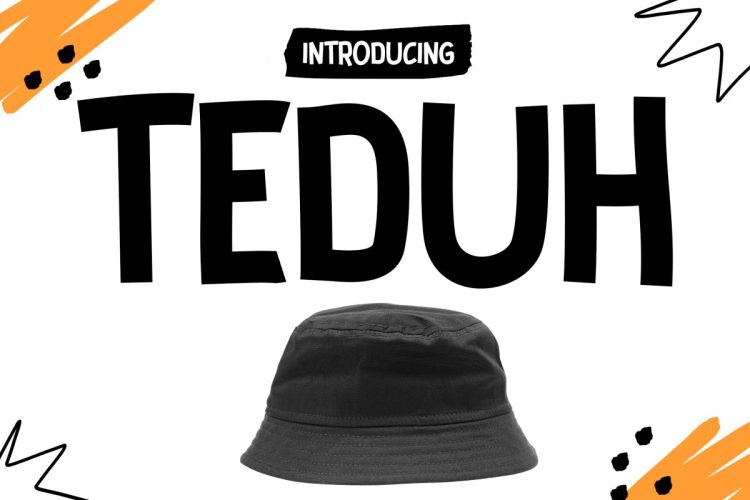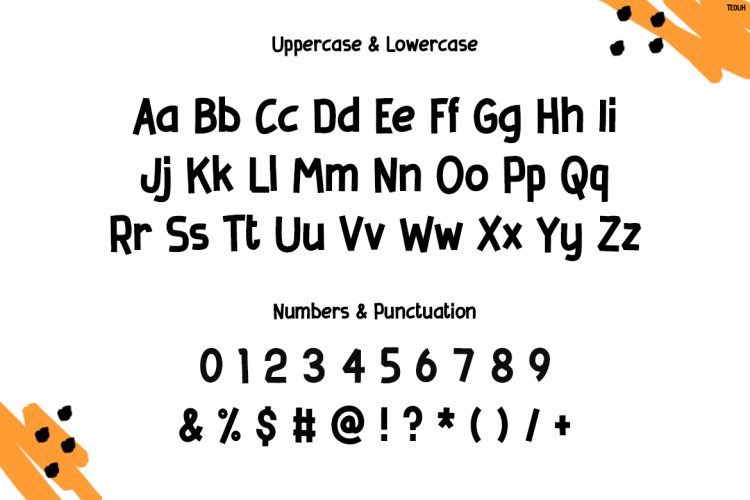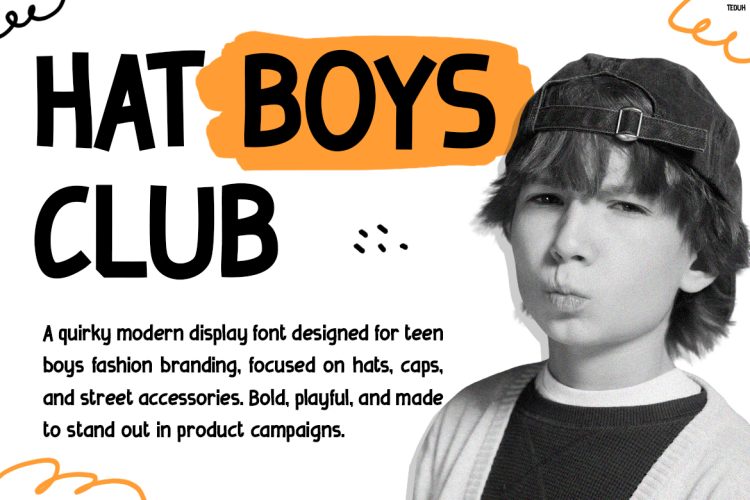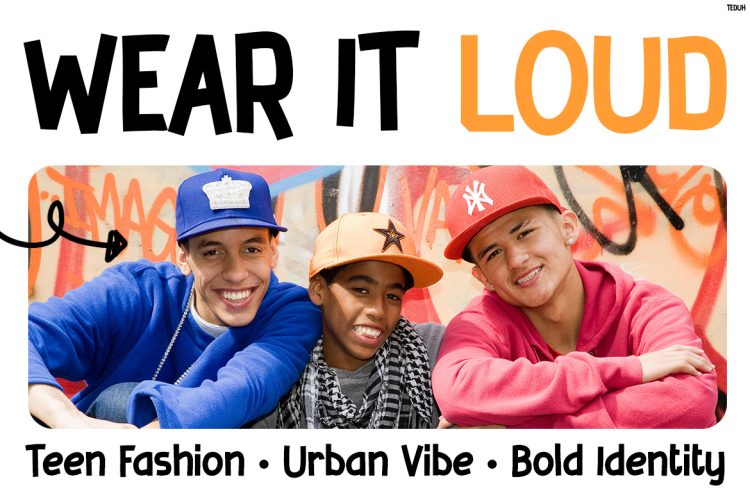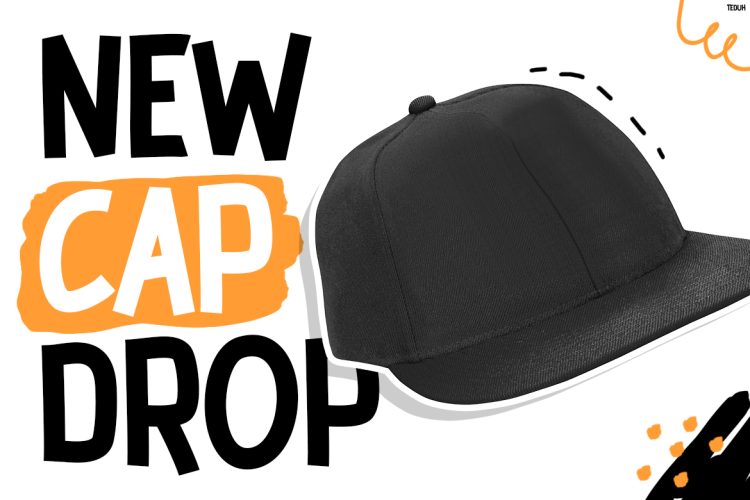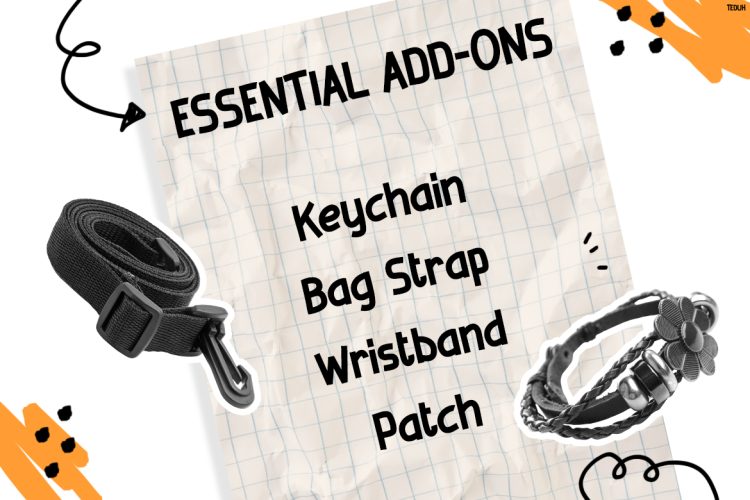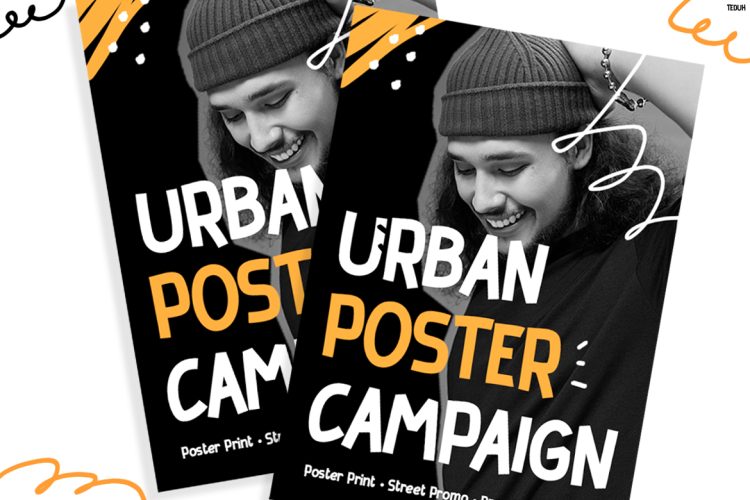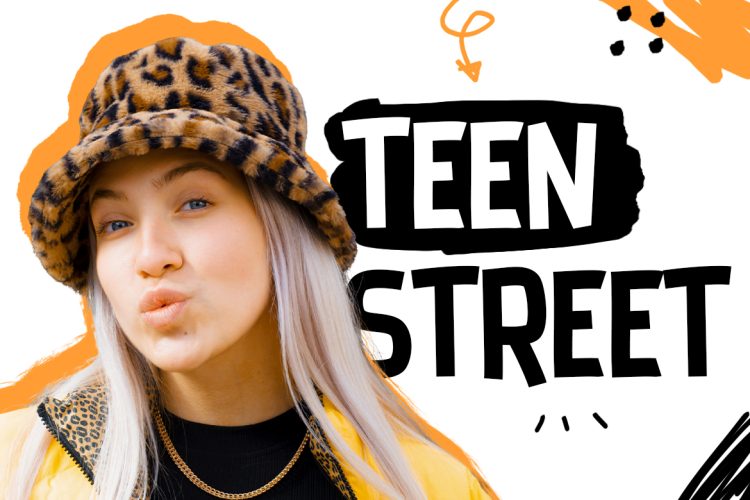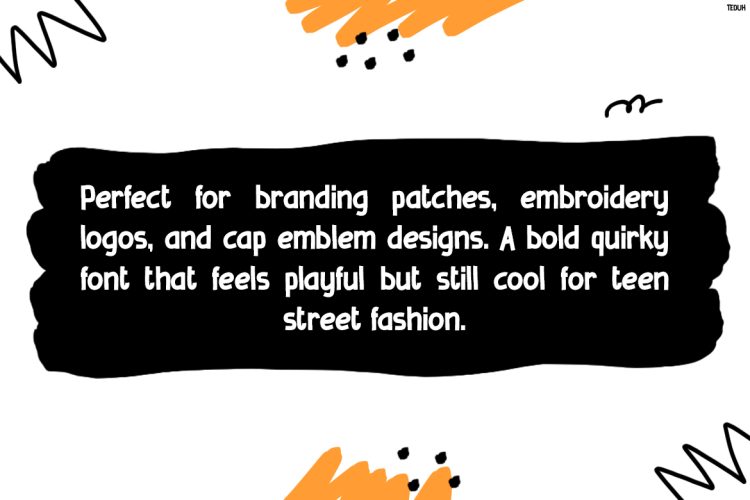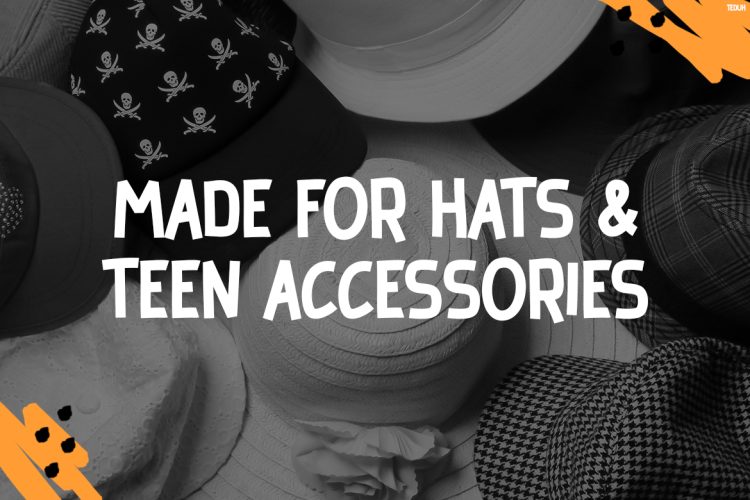
Instagram Font Teduh โ Bold Street Font with Urban Teen Energy
Instagram Font Teduh is a bold and playful display font designed to bring strong streetwear vibes into every design. With its chunky hand-drawn letterforms, quirky shapes, and urban-inspired style, this font instantly creates a loud and energetic visual atmosphere. Moreover, the bold typography makes every headline feel more expressive, modern, and attention-grabbing. In addition, the playful imperfect details give your layouts a raw and authentic street-style personality. Because of its strong urban aesthetic, Instagram Font Teduh works perfectly for teen branding, fashion campaigns, social media graphics, and edgy promotional content. Furthermore, the thick character structure keeps your text highly readable across both digital and print media. At the same time, the trendy handwritten vibe helps every design feel more youthful, stylish, and visually powerful.
Why Instagram Font Teduh Hits Different
Teduh combines modern street typography with playful urban energy. As a result, every word feels bold, rebellious, and full of attitude. Not only does the font create a strong visual impact, but it also enhances your branding with its trendy and expressive appearance. Additionally, the chunky letterforms make headlines stand out instantly on posters, packaging, and social media posts. Meanwhile, the hand-drawn aesthetic keeps every layout looking more natural and engaging. Whether you are creating teen fashion campaigns, hat branding, or urban event promotions, this font helps every project feel louder and more dynamic. Likewise, the edgy streetwear vibe instantly connects with younger audiences and modern creative trends.
- Streetwear branding
- Teen fashion campaigns
- Instagram posts and reels
- Urban posters
- Hat and accessories branding
- Merchandise designs
- Creative packaging
- Social media graphics
- Music event promotions
- Trendy youth content
Make Your Designs Go Full Street Mode